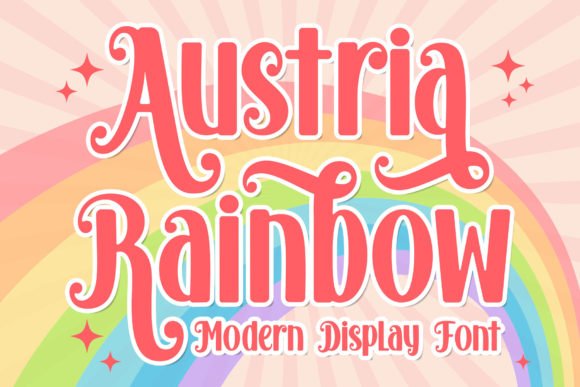
Unleashing Creativity with the Austria Rainbow Font
Have you ever been browsing through a beautiful wedding invitation or a stylish logo and thought, “Wow, I wish I could create something like that”? For designers and creatives, finding the right font can be the key to unlocking a stunning visual identity. And, that’s exactly where the Austria Rainbow Font comes in – a beautiful and elegant Display font that’s perfect for adding a touch of sophistication to your designs.
This versatile font can be used for a wide range of projects, from logos and branding to invitations, stationery, and social media posts. With its classy, unique, and modern look, the Austria Rainbow Font is a valuable addition to any designer’s toolkit. And, with PUA encoding, accessing all the glyphs and swashes is a breeze, making it even more accessible and user-friendly.
- Unique Characteristics: The Austria Rainbow Font features a unique, colorful design that creates a sense of movement and energy, making it ideal for use in titles, headings, and other attention-grabbing applications.
- Style Variations: The Austria Rainbow Font comes in several style variations, including regular, bold, italic, and bold-italic, allowing users to customize their designs to suit their needs.
A Designer’s Review: Austria Rainbow Font
I recently had the chance to work with the Austria Rainbow Font, and I have to say, it’s a mixed bag.
- Unique personality: The Austria Rainbow Font has a distinct, playful feel to it. It’s the perfect choice for designs that need a bit of whimsy.
- Colorful: The rainbow-inspired color scheme is, of course, a highlight. It adds a pop of fun to any design.
- Casual appeal: This font is perfect for informal designs, like social media graphics, flyers, or even children’s books.
- Readability: While the font is great for casual designs, it may not be the best choice for body text. The letters can be a bit too ornate, making it difficult to read.
- Lack of versatility: The Austria Rainbow Font is quite specific in its style, which may limit its use in more formal or corporate designs.
- Overuse: With its playful nature, it’s easy to overuse this font. Be sure to balance it with more traditional fonts to avoid overwhelming your design.
While the Austria Rainbow Font has its limitations, it’s still a great choice for the right projects. It’s perfect for designs that need a bit of fun and personality. Just be sure to use it wisely and balance it with more traditional fonts to avoid overwhelming your design.
Tips for Getting the Most Out of the Austria Rainbow Font
Use the Austria Rainbow Font to add a touch of whimsy and fun to your designs.
Pair it with bright colors and playful graphics for a cohesive look.
Experiment with different font sizes and colors to create a unique visual effect.
The Austria Rainbow Font is perfect for:
Creative projects, such as greeting cards, invitations, and party decorations.
Children’s educational materials, such as worksheets, posters, and activity sheets.
Marketing materials, such as social media graphics, flyers, and brochures.